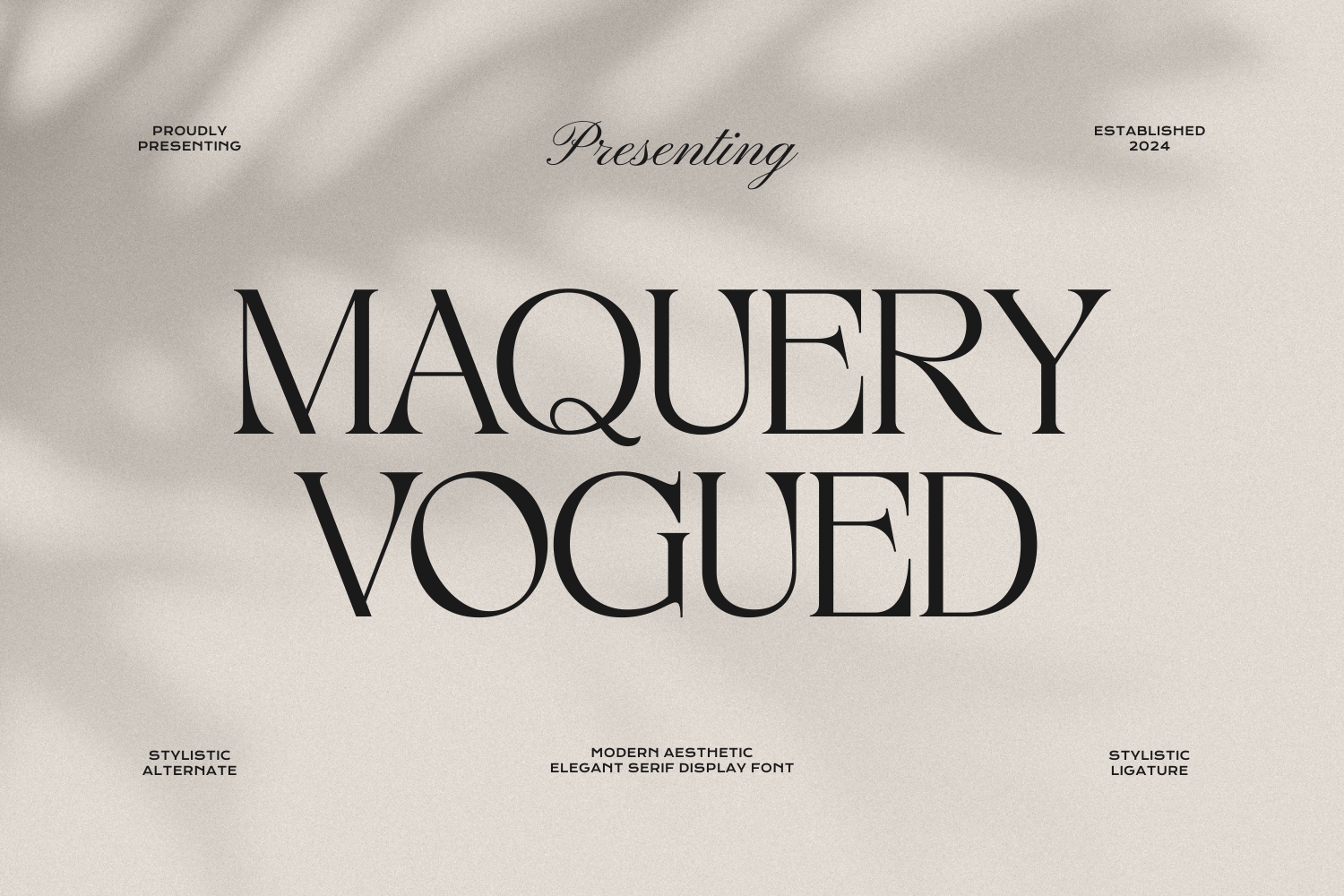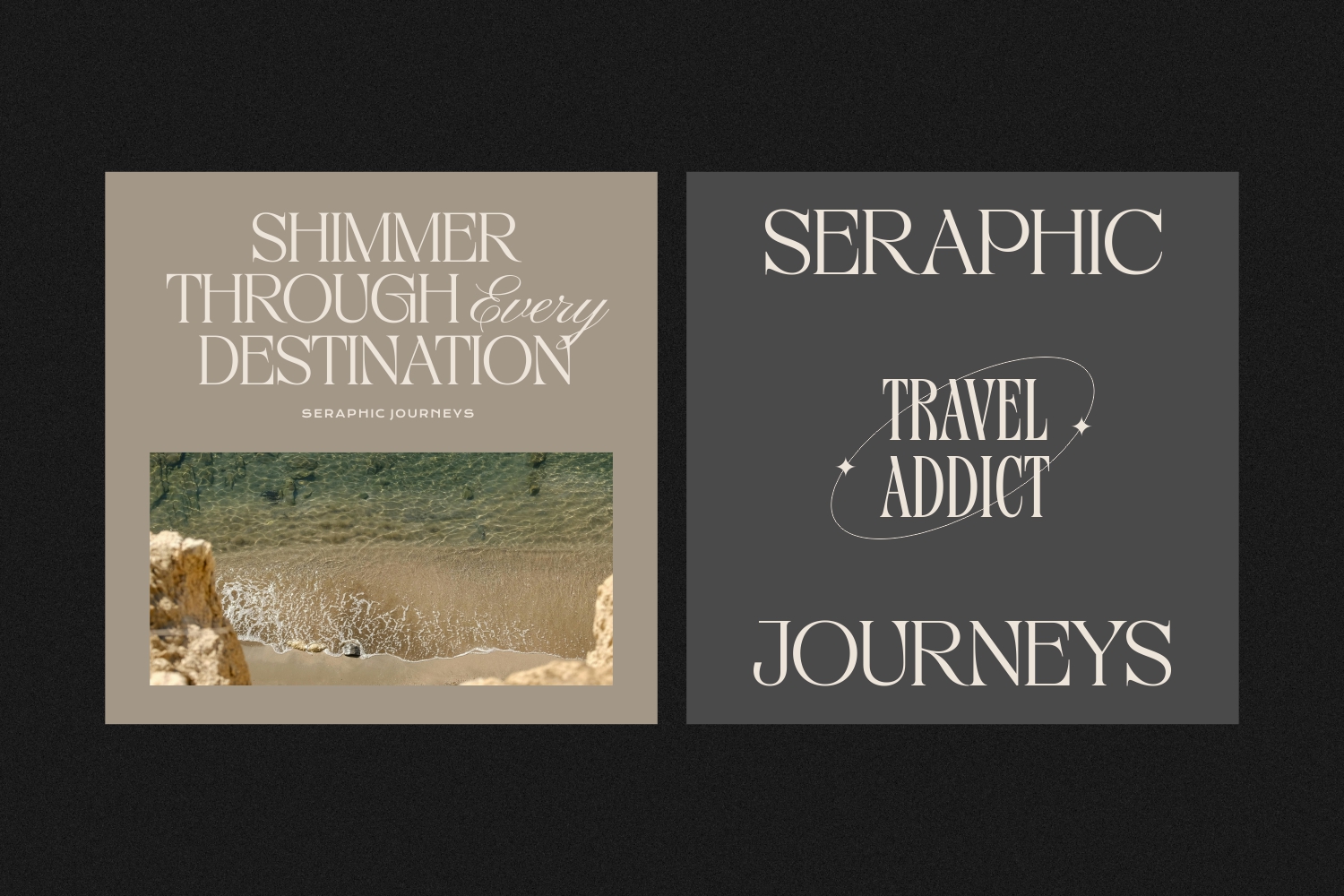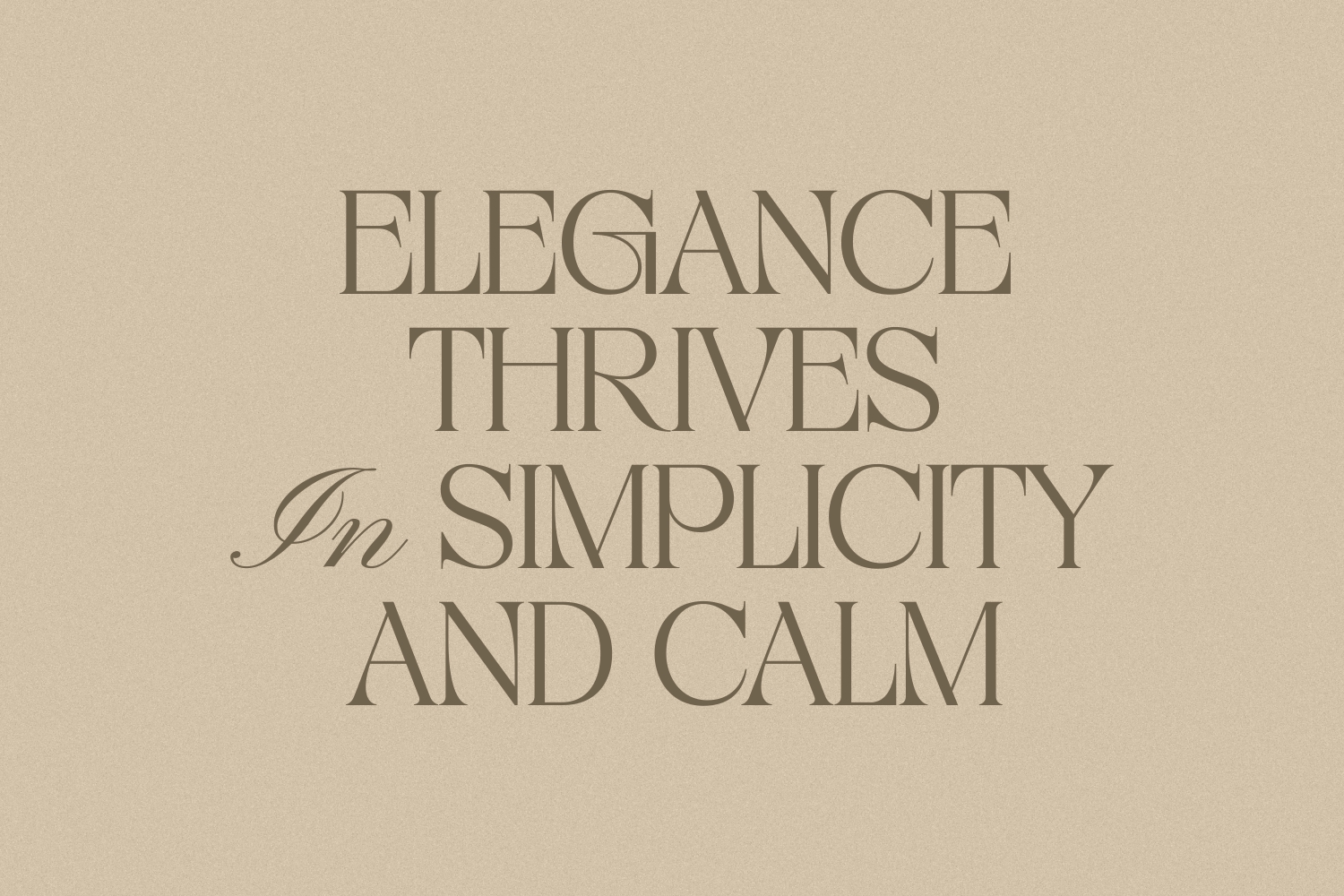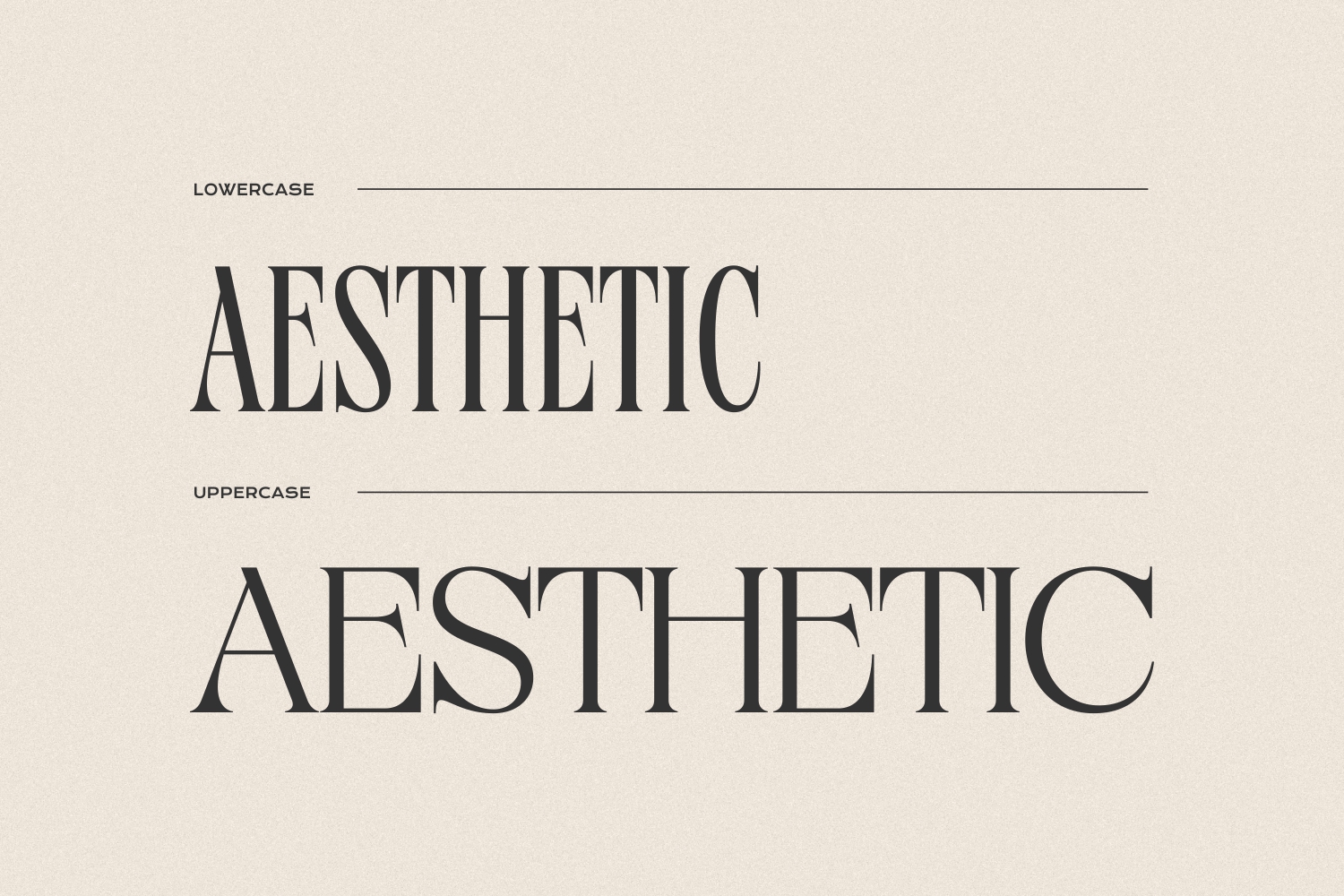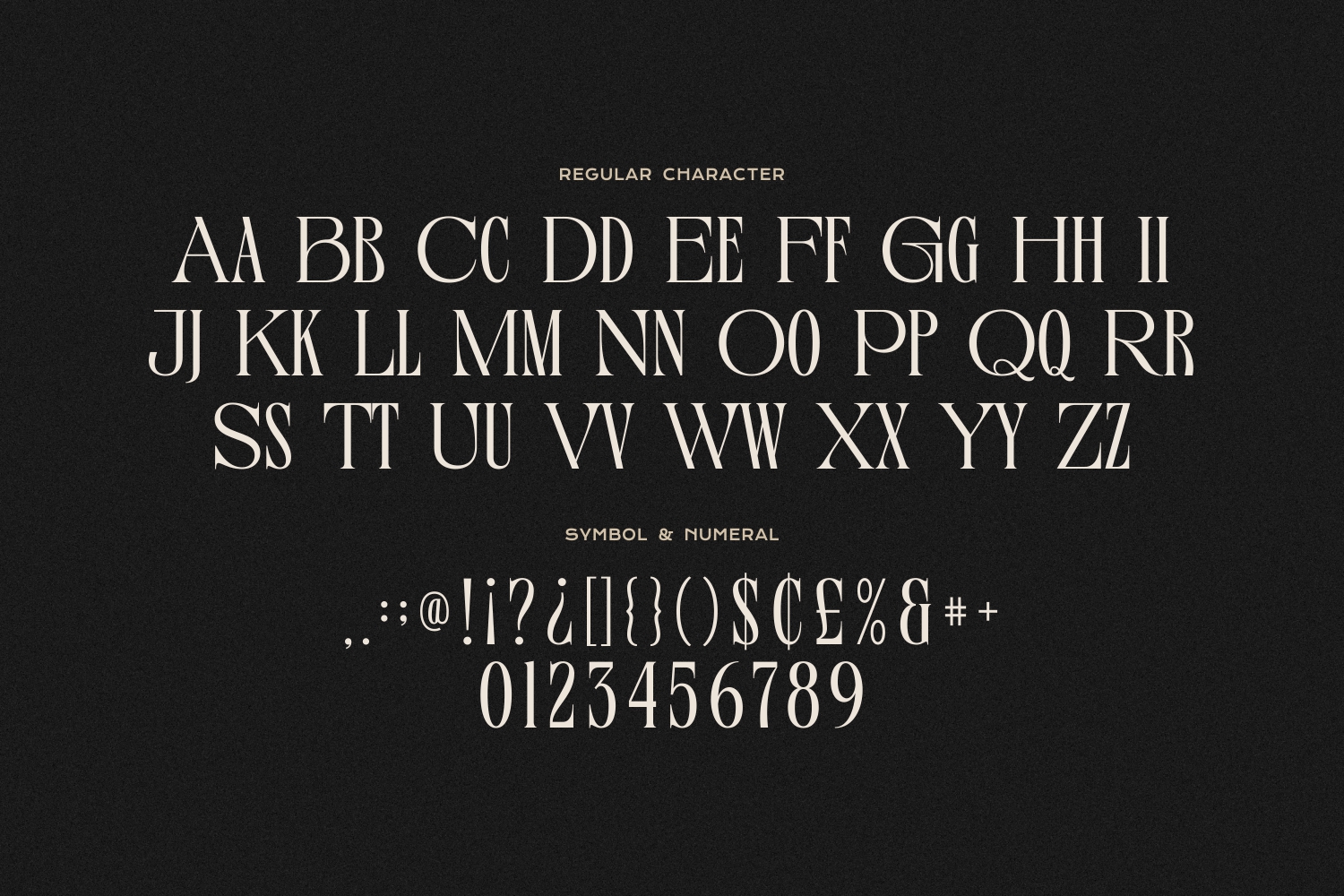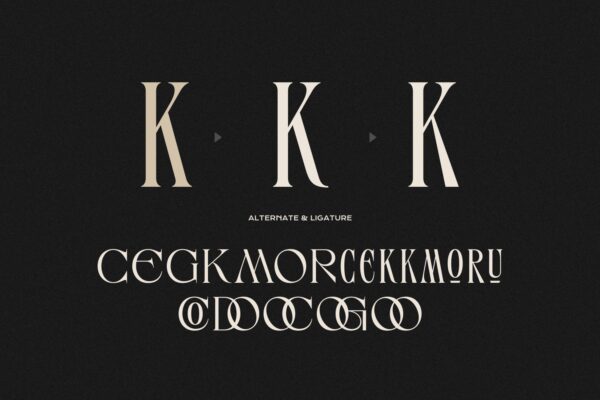
Maquery Vogued is an elegant serif display font that blends modern sophistication with timeless charm. Featuring high contrast strokes, refined curves, and graceful proportions, it delivers a luxurious and fashionable look perfect for editorial design, branding, invitations, and high-end packaging. The font’s stylish alternates and distinctive ligatures allow designers to create unique compositions that radiate elegance and exclusivity.
With its versatile character set, Maquery Vogued works beautifully in both large and small sizes, making it ideal for magazine headlines, logo marks, wedding stationery, and minimalist layouts. Its modern aesthetic paired with classic serif detailing ensures that every design stands out with confidence and poise.